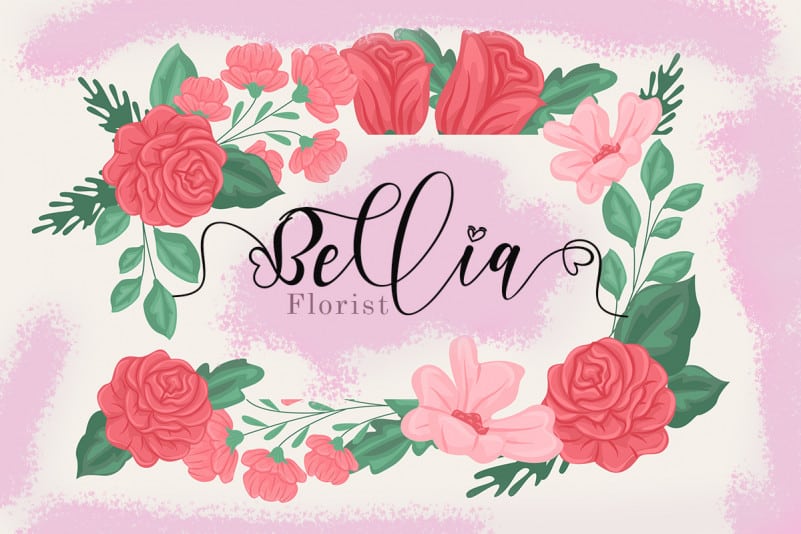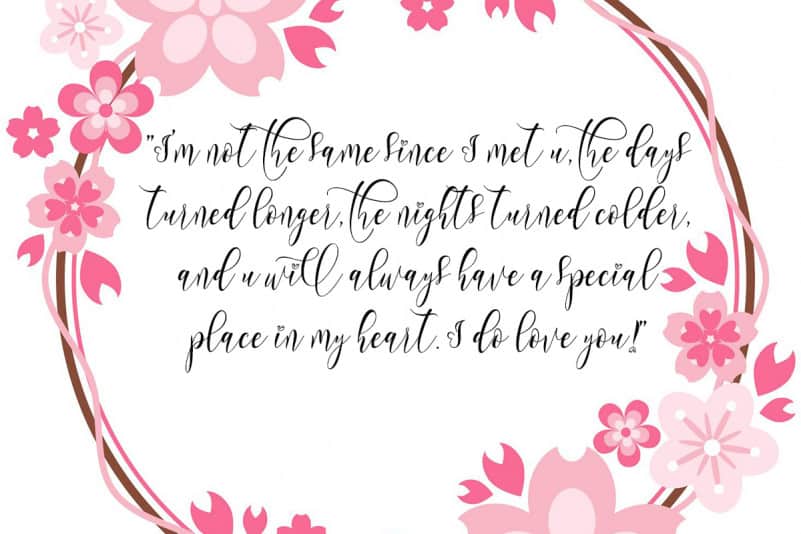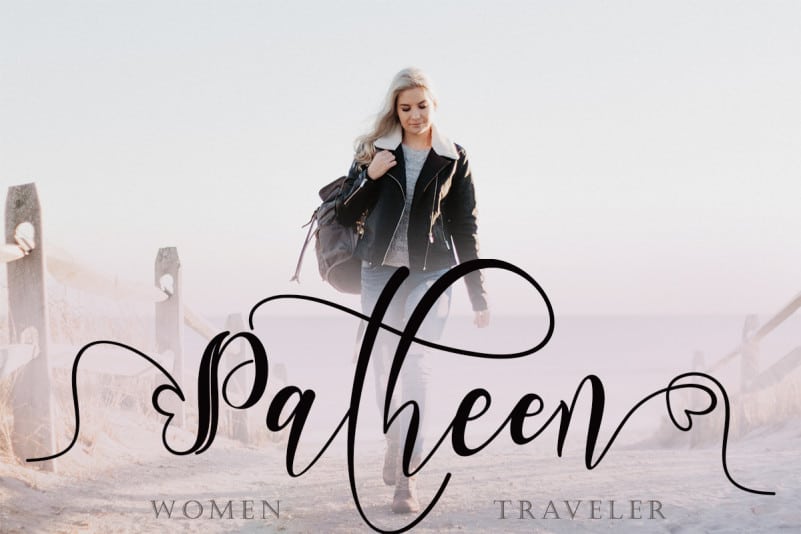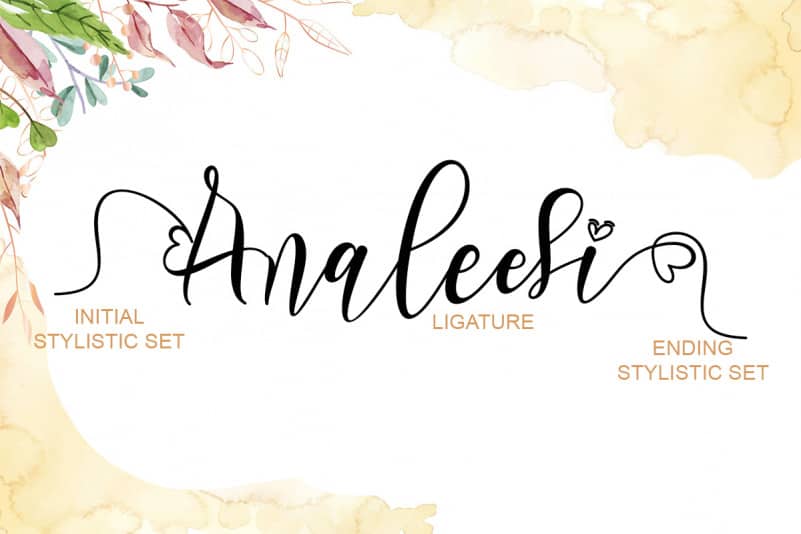
This font is called Roshalia Calligraphy Font. Roshalia is a very beautiful, high-quality font complemented by very unique swashes and ligatures. This font can make your work more beautiful and elegant. This font is perfect for marketing your products, promoting your business, creating quotes, weddings, invitation cards, logos, branding and status updates on social media, autumn, Christmas and valentine’s day. Can also be used to enhance your beautiful moments, and more.